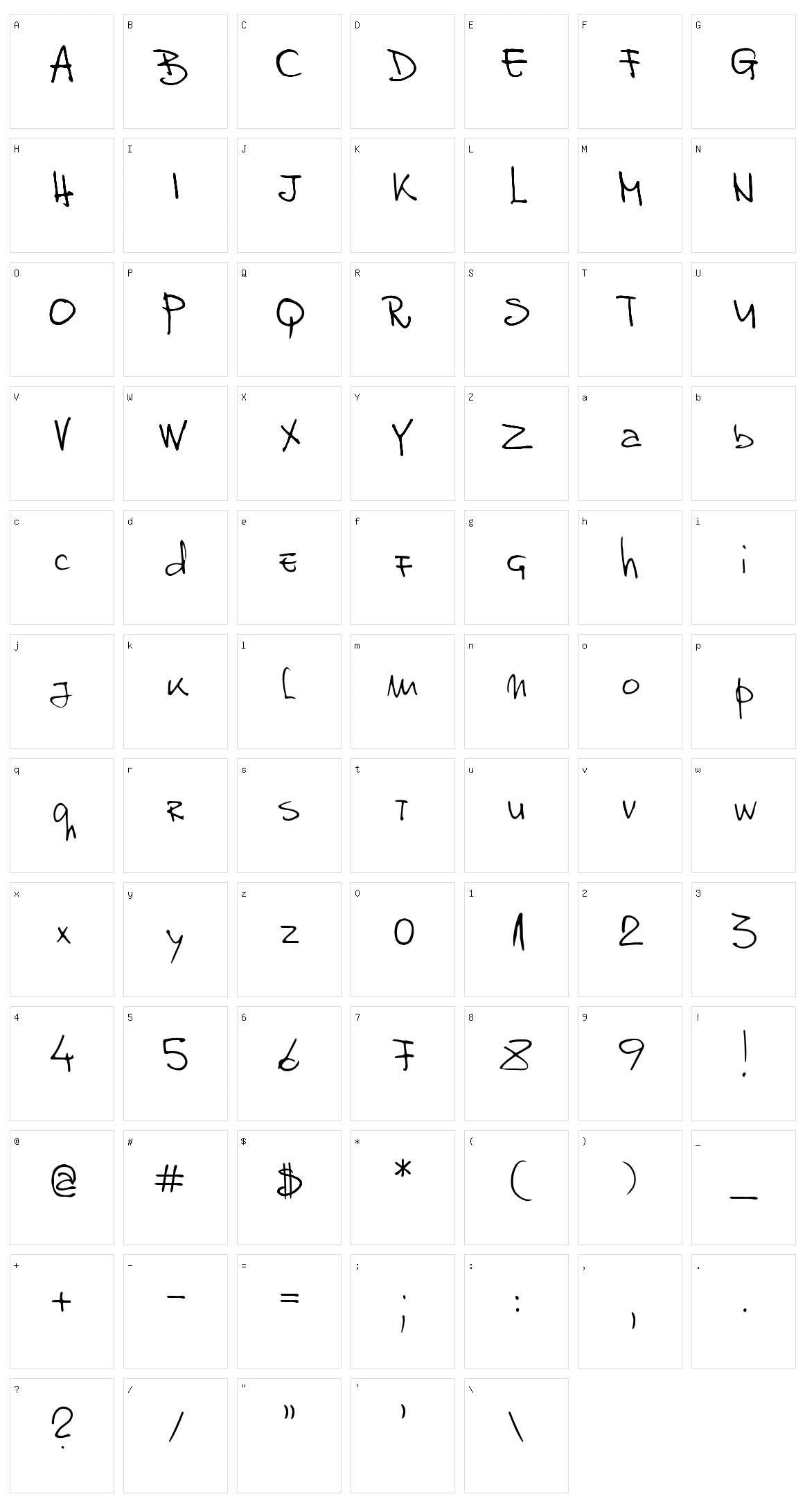
The free font Dankos is carefully designed by brat Dule - visual communication, showcasing a thoughtful balance of creativity and usability and falls under the Script font style. When you download the ZIP file, it contains only 22.47 KB of font files, making it lightweight and quick to download. Please review the license details below to understand permitted usage and distribution rights. If license information is not available, we recommend using this font for personal projects only or contacting the author directly for commercial usage permissions.